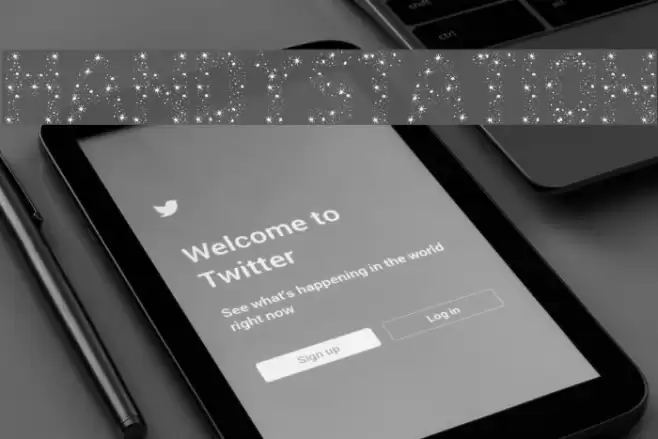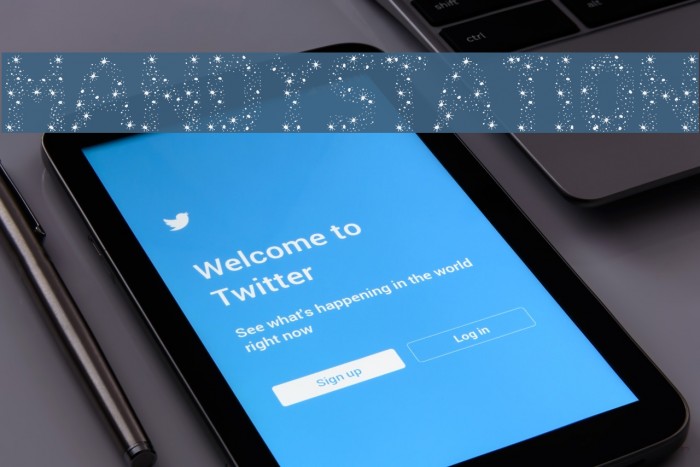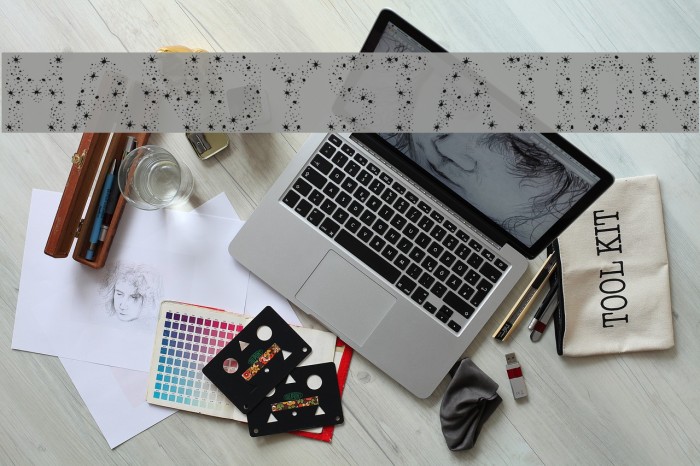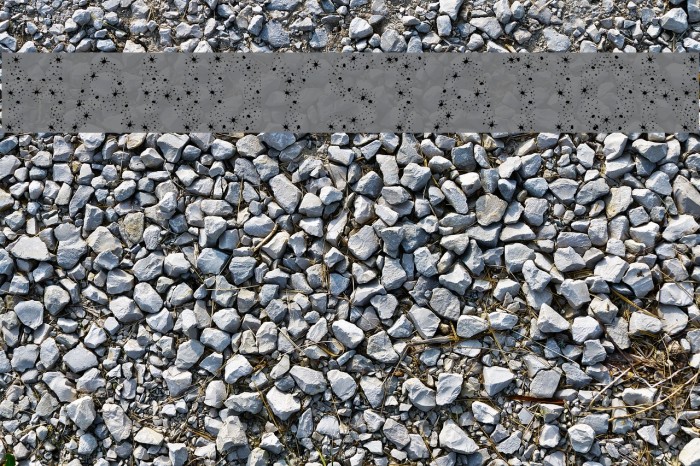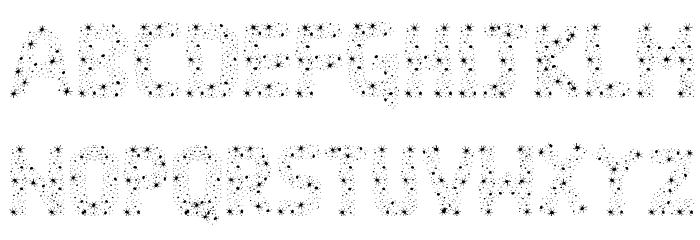
Mandystation Font
Mandystation Description
This decorative font is characterized by its unique use of star-shaped elements to form each letter. The design is playful and whimsical, making it stand out with its intricate pattern of stars that create a dotted outline of each character. The font maintains a consistent structure across both uppercase and lowercase letters, as well as numbers and special characters. The overall appearance is light and airy, with a sense of movement and sparkle, ideal for creative and festive projects.
A whimsical decorative font composed of star-shaped elements forming each character from Decorative fonts.
- Proposed Projects: Ideal for party invitations, holiday cards, children's book covers, and festive event posters.
- Weight: Light
- Contrast:
- Use Case: Headlines, Logos, Decorative Text